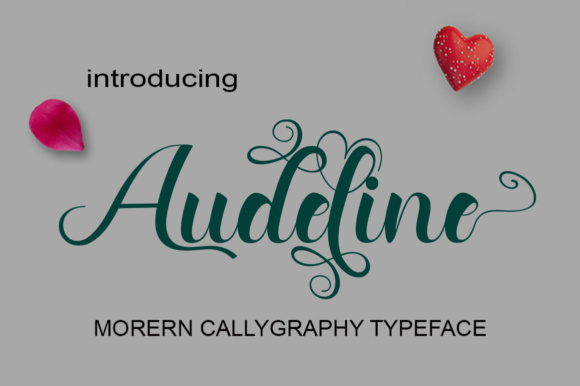
The Quest for the Perfect Font: Discovering Audeline
I still remember the frustration of working on a design project, hours spent searching for the perfect font, only to come up empty-handed. My client wanted something modern, elegant, and unique – a font that would make their brand stand out. That’s when I stumbled upon Audeline, a handwriting font that has since become a staple in my design toolkit.
Audeline: A Modern Calligraphy Masterpiece
Audeline was designed by handwriting and boasts modern and unique forms of calligraphy. The writing style is very natural, making it perfect for designs that require a personal touch. What sets Audeline apart is its very unique style of calligraphy, which makes it incredibly suitable for use in modern design projects.
Endless Possibilities with Audeline
Audeline’s versatility knows no bounds. You can use it for various purposes such as headings, logos, wedding invitations, t-shirts, letterheads, and much more! Its flexibility and elegance make it an excellent choice for designers, crafters, and creative hobbyists.
My Honest Review of Audeline
- ✨ Unique and modern calligraphy style
- 💫 Perfect for designs that require a personal, handwriting feel
- 🎨 Great for creative projects, such as invitations, posters, and social media graphics
- ⚠️ Limited availability of stylistic alternates, but still offers great flexibility
The Story Behind Audeline
Audeline was created with the intention of bringing a modern, unique calligraphy style to the world of typography. Its designer aimed to craft a font that would be both elegant and highly legible, perfect for a wide range of design projects.
Q: What type of projects is Audeline best suited for?
A: Audeline is perfect for designs that require a modern, elegant feel, such as headings, logos, wedding invitations, t-shirts, and letterheads.
Q: Is Audeline a difficult font to use?